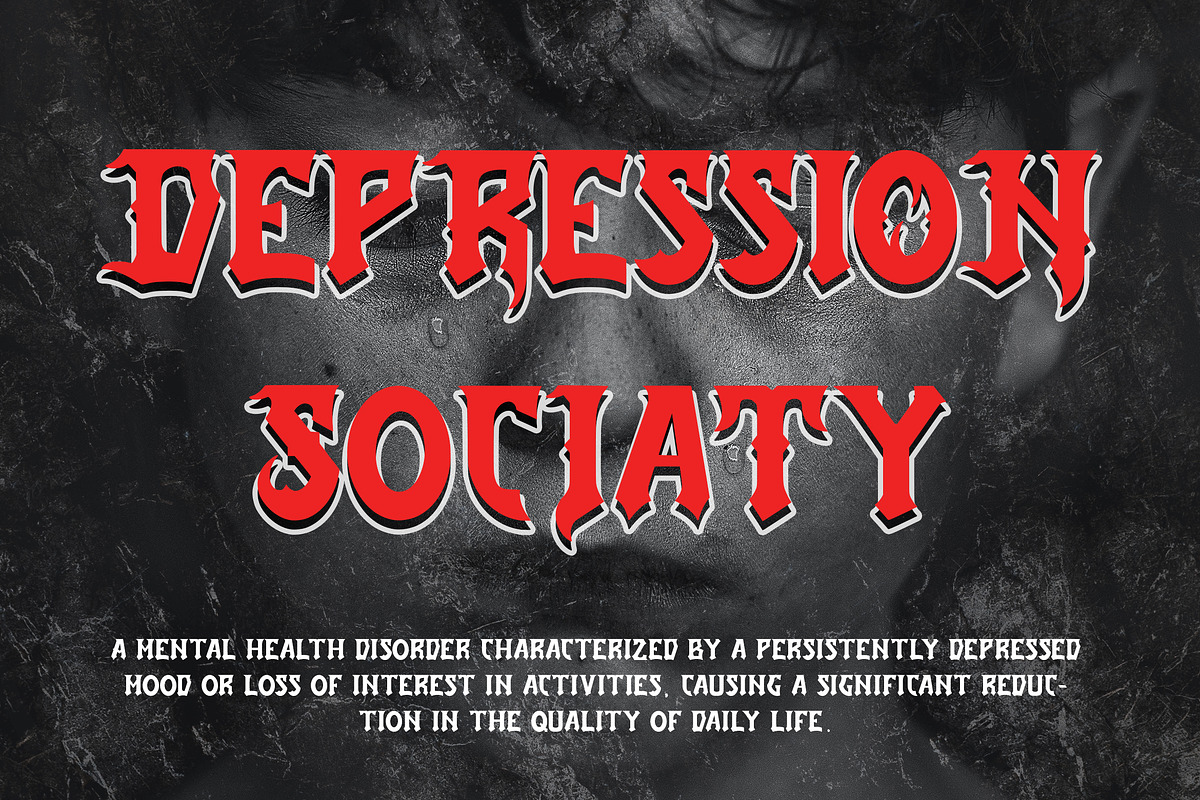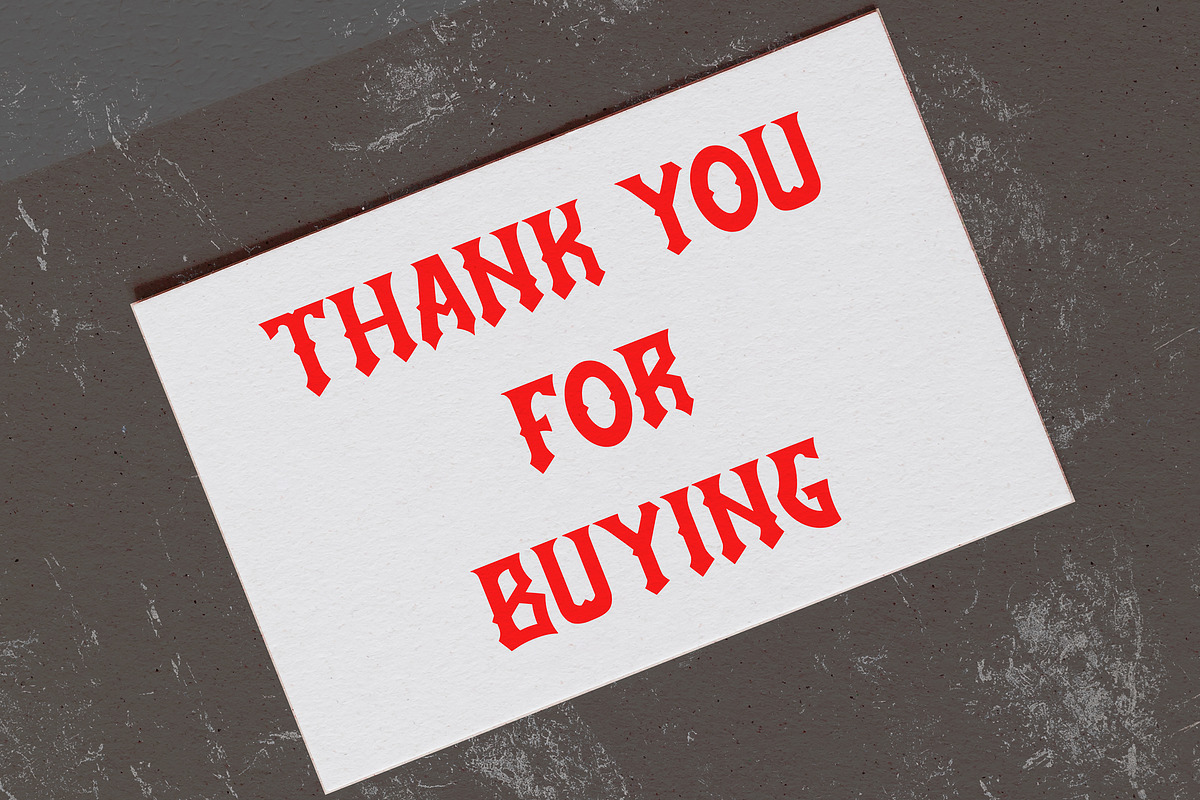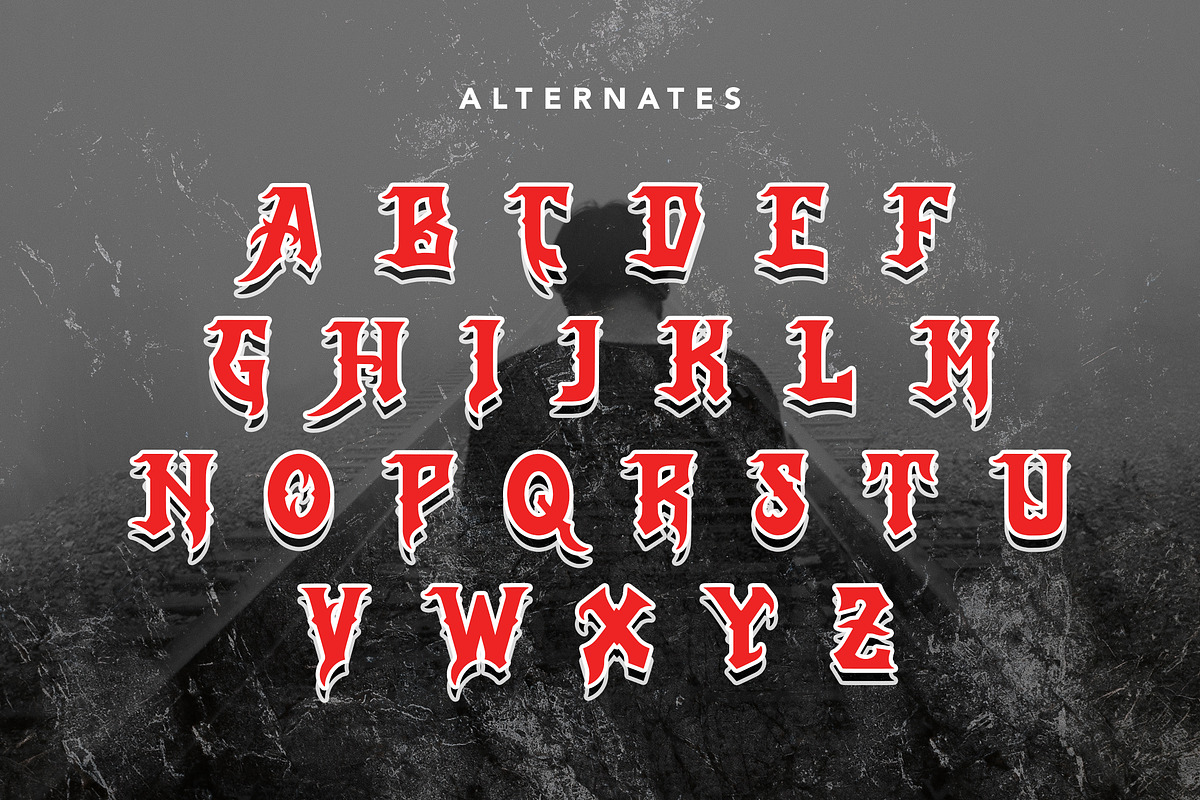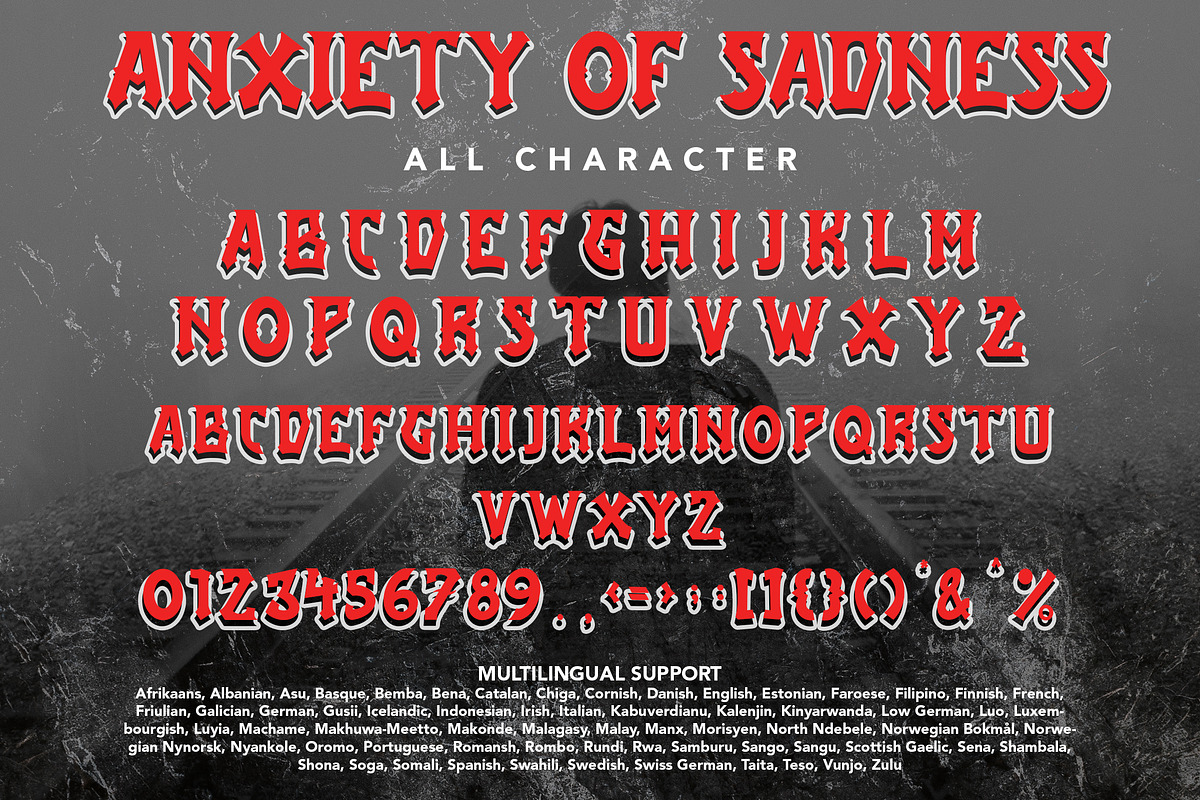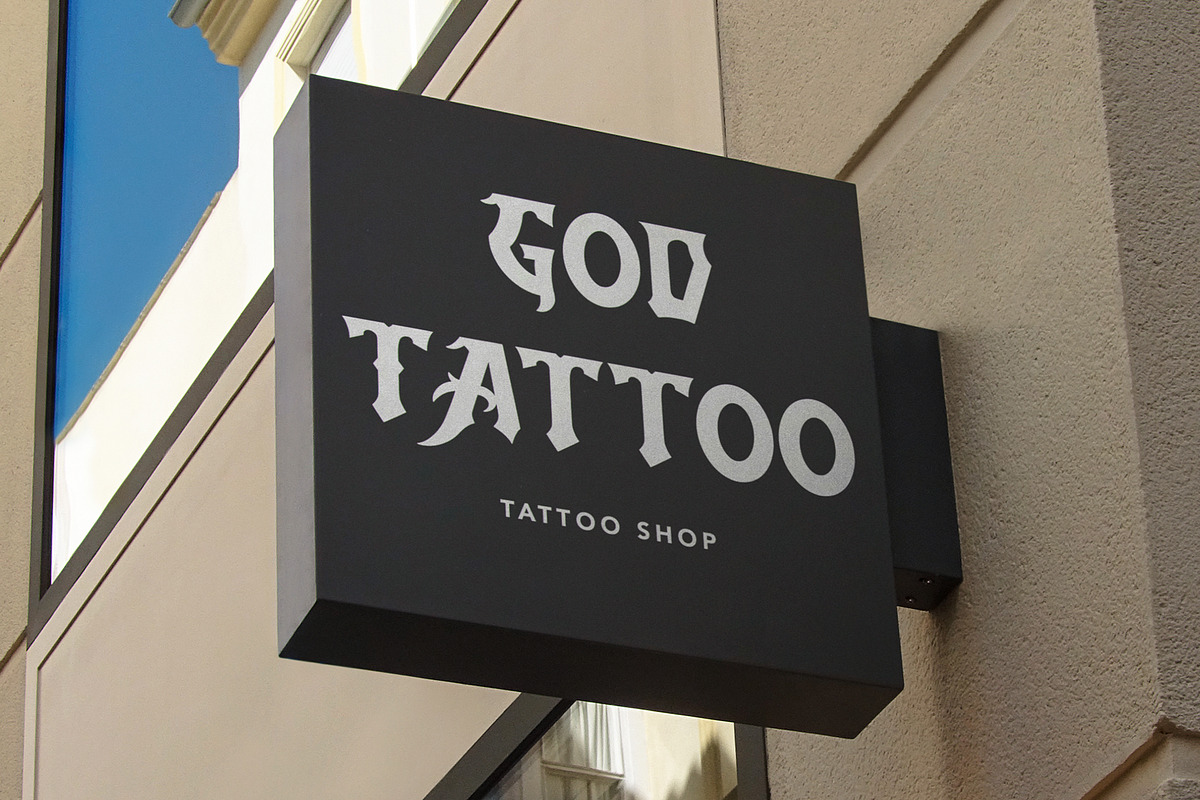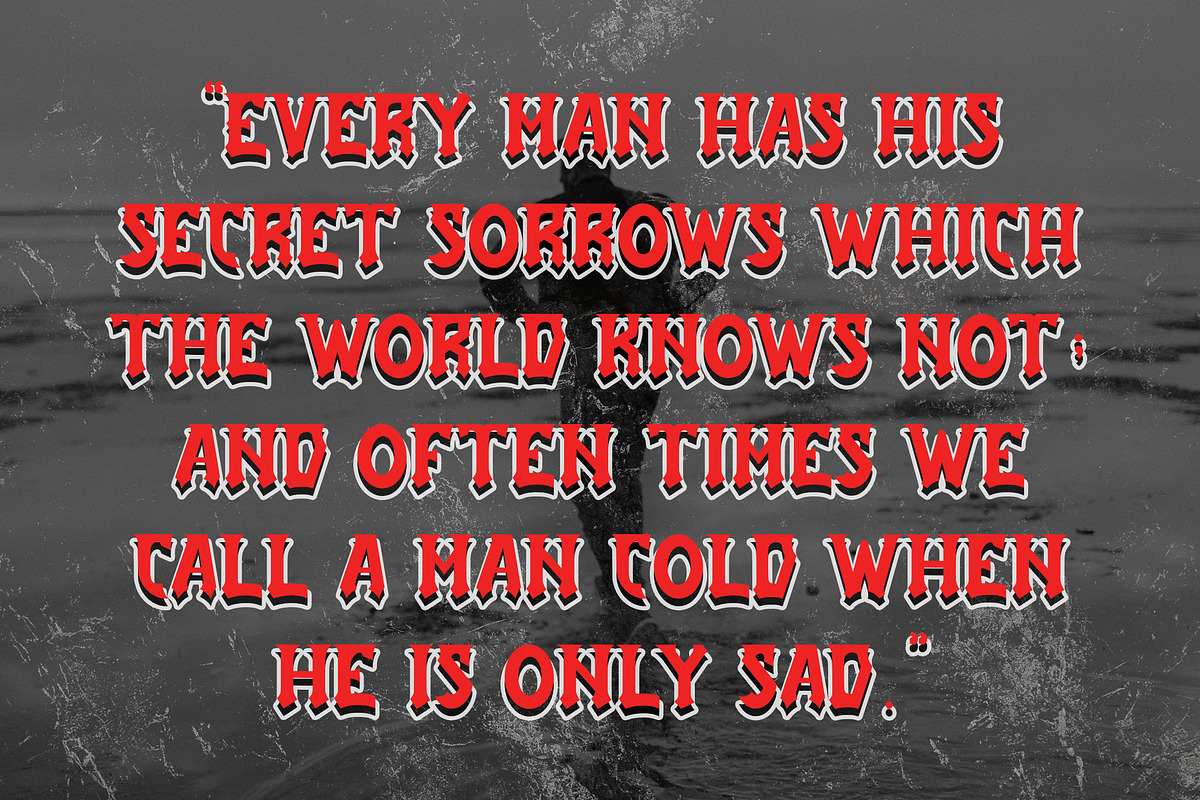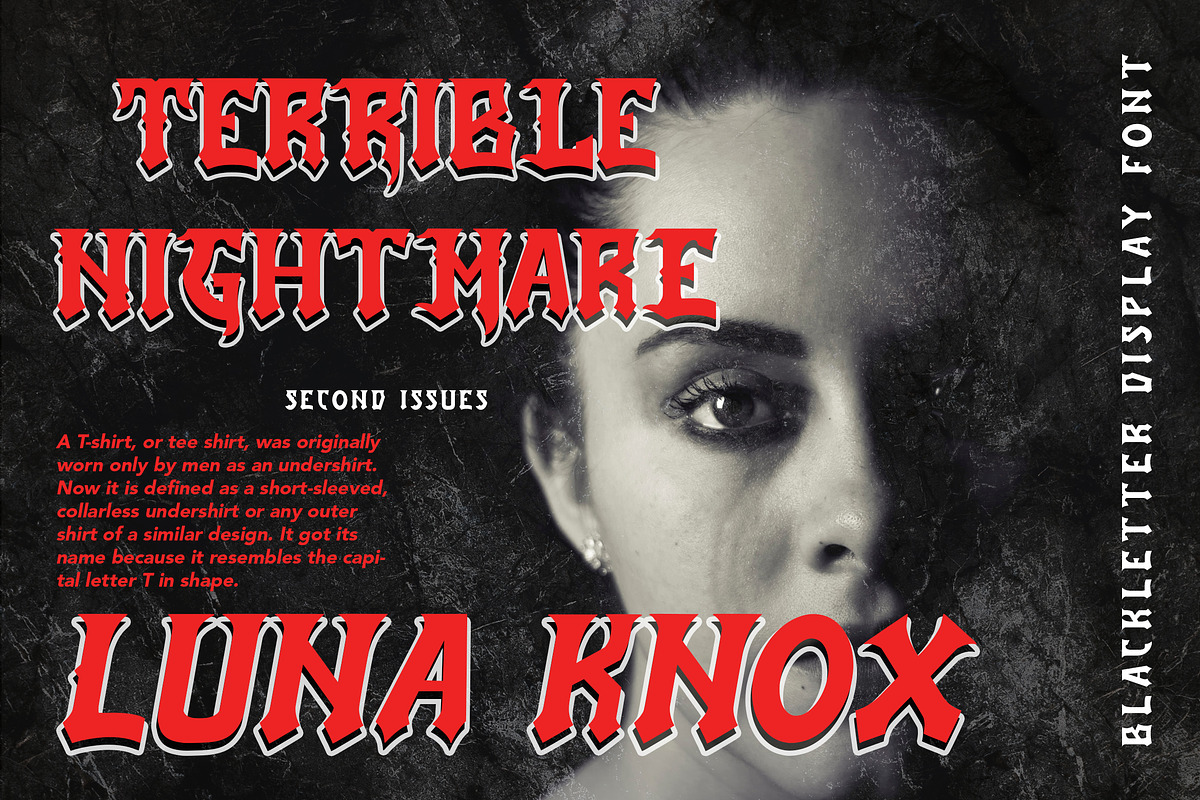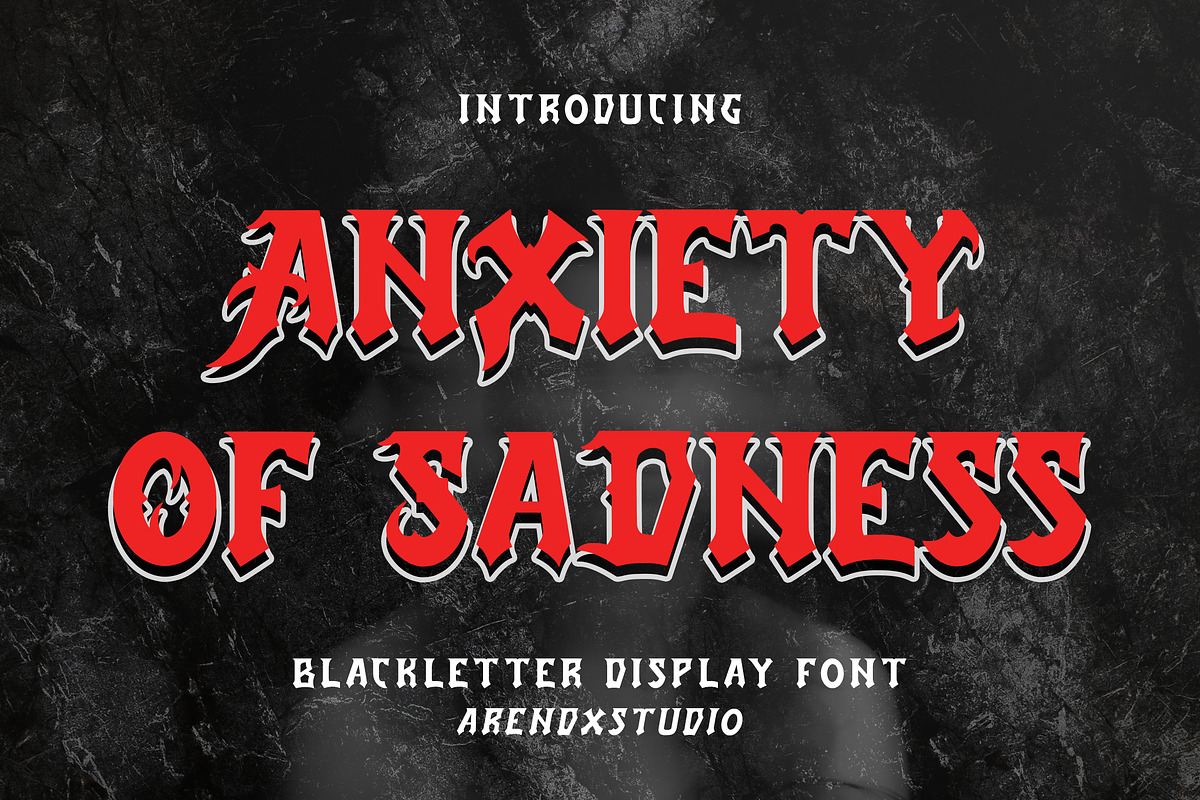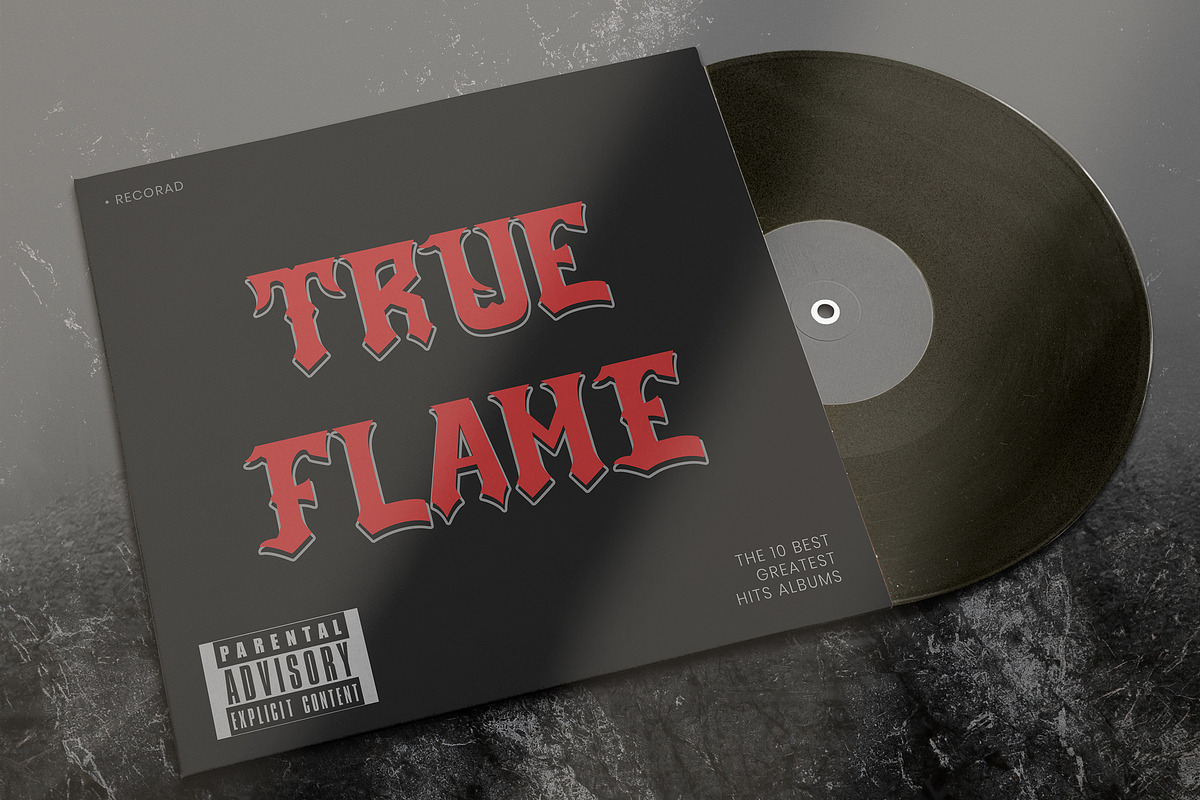
Anxiety Of Sadness - Blackletter
Anxiety Of Sadness - Blackletter Display Font is a display font that is inspired by gothic and horror style because its shape is very unique and is perfect for any project that you will use with this theme.
Anxiety Of Sadness with opentype features such stylistic alternates, stylistic sets & ligatures good for logotype, poster, badge, book cover, tshirt design, packaging and any more.